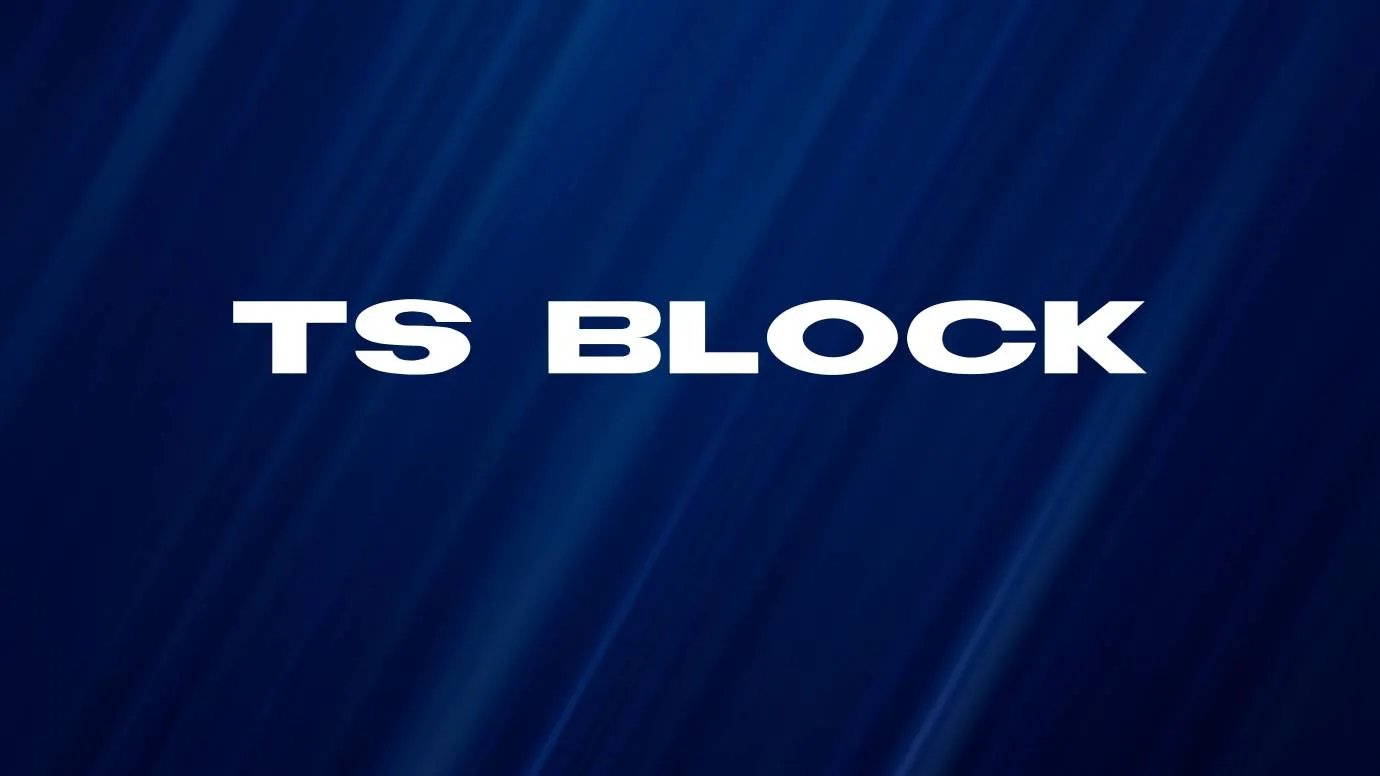
TS Block Font
Block Font Family falls into the category of bold sans serif font family. This texture was designed and published by Steve Ferrera. The main typeface contains two further stunning styles.
NameTS Block Font
TypeSans Serif
DesignerSteve Ferrera
Who is the designer of TS Block Font?
Steve Ferrera is the main and original creator and publisher of this tremendous font family.
Is TS Block Font a good typeface?
Yes, this is a good typeface and it has 02 wonderful styles and 655 outstanding characters.